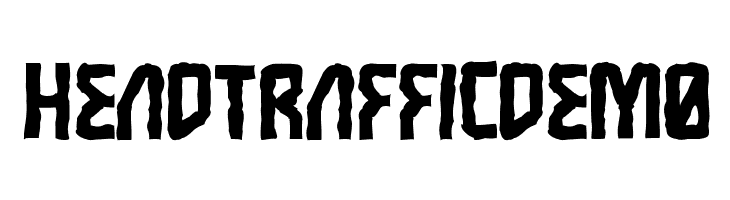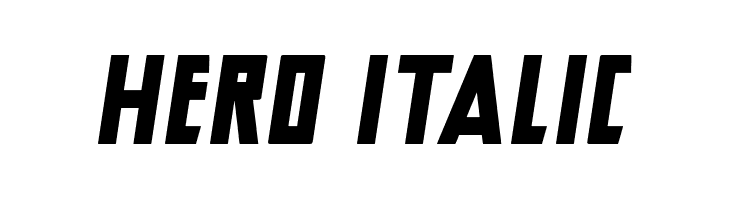
( Hamelton Media - James Hamelton Jr - www.hameltonmedia.com )
A playful, handwritten font with a casual and approachable style.
( Carini Type Foundry - netz.werk.ch/carini/fonts/default.html )
A creative font using hand gestures to represent each character.
( Fonts by MuraKnockout Media + Design )
A bold, rugged font with a hand-carved, artistic appearance.
A bold, geometric font with strong, angular shapes ideal for impactful headlines.
Bold, italic, and geometric font with a dynamic and energetic style.
A playful, casual handwritten font with a smooth, flowing style.
( Hamelton Media - James Hamelton Jr - www.hameltonmedia.com )
( Fonts by FontGrube AH )
Traditional music notation symbols with bold, clear lines.